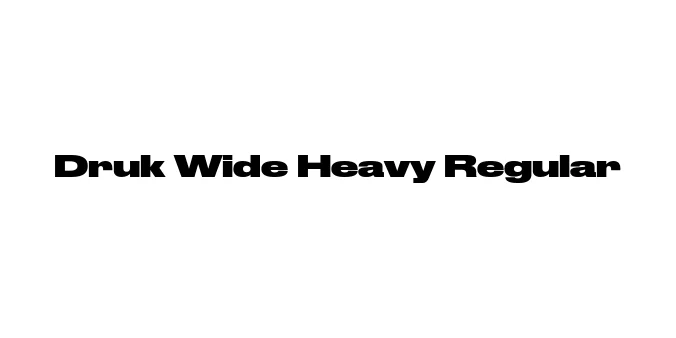
Druk Wide Heavy Regular
Designed by Berton Hasebe
Druk Wide Heavy Regular was designed by Berton Hasebe and released through the acclaimed foundry Commercial Type. This typeface was initially inspired by the graphic language of early to mid-20th-century European display typography, specifically those used in bold Dutch and German publications. It was created to challenge the limits of how wide and heavy a typeface could be while maintaining its structural integrity and commanding presence.
The Druk family has become a staple in the world of high-fashion editorial design and modern branding due to its unapologetic boldness and brutalist aesthetic. The Wide Heavy variant is particularly effective for large-scale applications where horizontal space is abundant, allowing the font to dominate the layout. It serves as a powerful tool for designers seeking to convey strength, authority, and a contemporary edge in both digital and print mediums.
Druk Wide Heavy Regular Best Uses
Ideal for massive, attention-grabbing headlines in magazine spreads.
Perfect for high-impact logos and visual identities that require a strong horizontal footprint.
Excellent for billboards and digital hero sections where immediate visual impact is necessary.